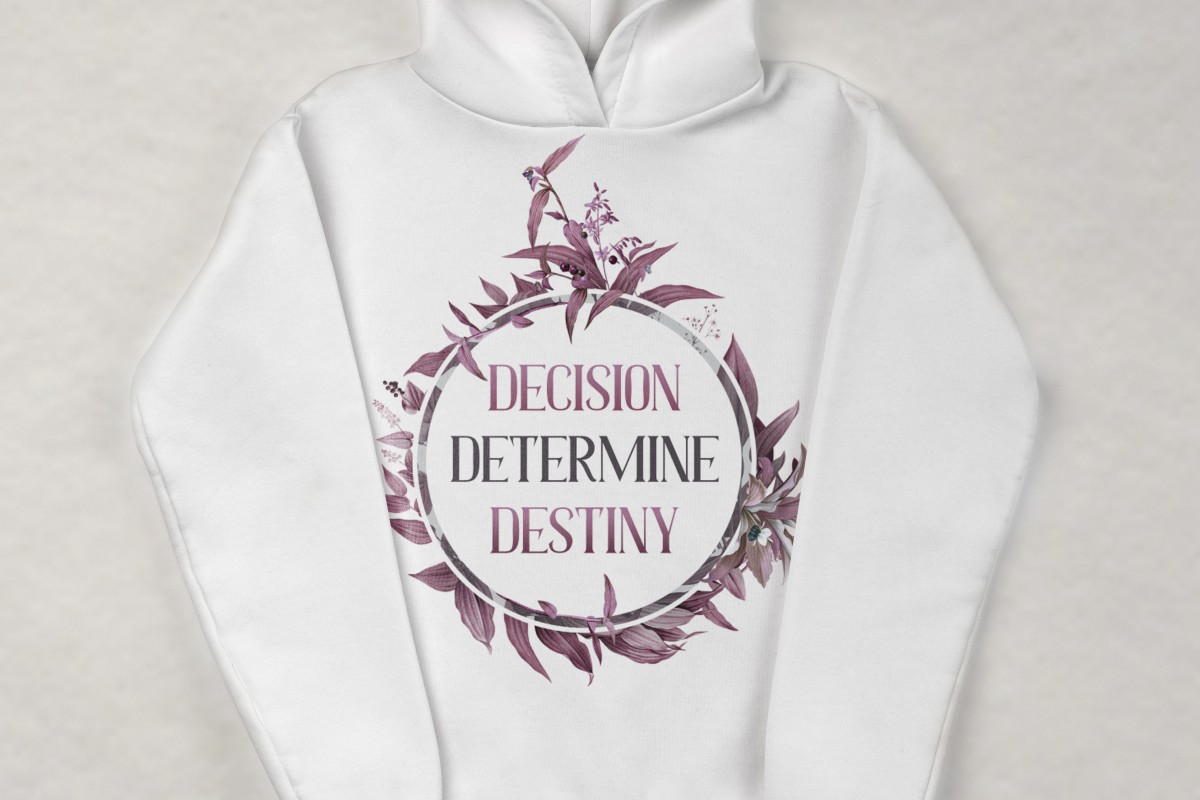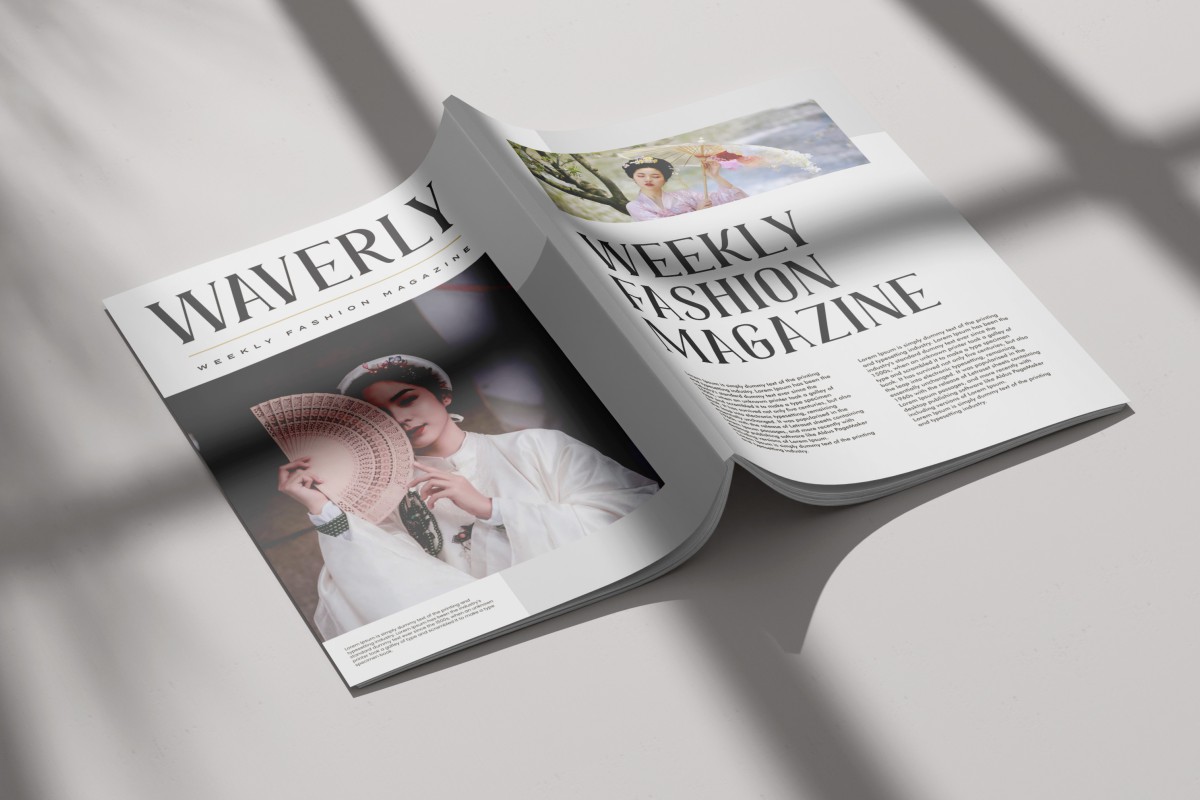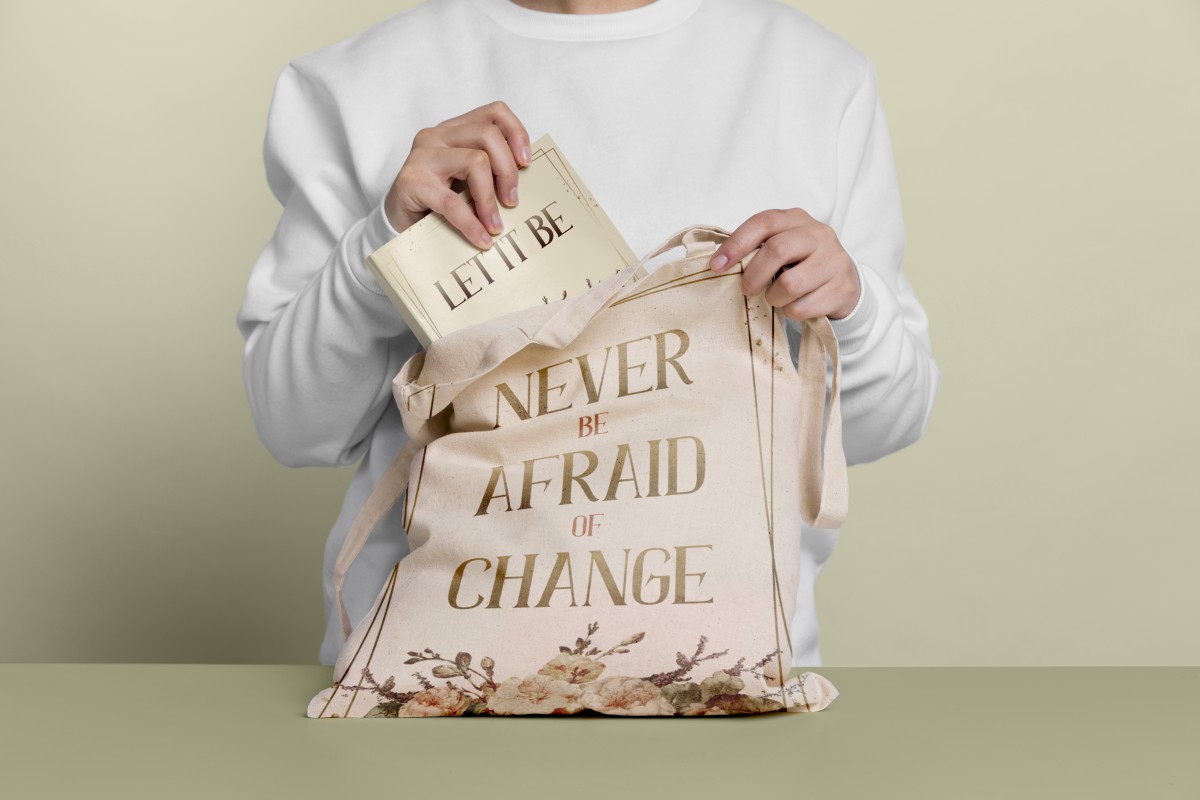
Beige Wave Font
Beige Wave Display Font
This is an elegant serif display font with luxury and modern style inherent in every letter. Crafted in the best possible way so that it has the characteristics of a stunning wavy lettering, inspired by real waves and still easy to read. This one should make your design instantly beautiful and professional!
Beige Wave Font includes full set of All Caps Basic Characters for one size, Numerals and Punctuation. Also comes with alternate characters to make it standout. This font will be suitable for many industries such as apparel, cosmetic, craft, florist, jewelry, publishing, screen printing, wedding decoration, and many more!